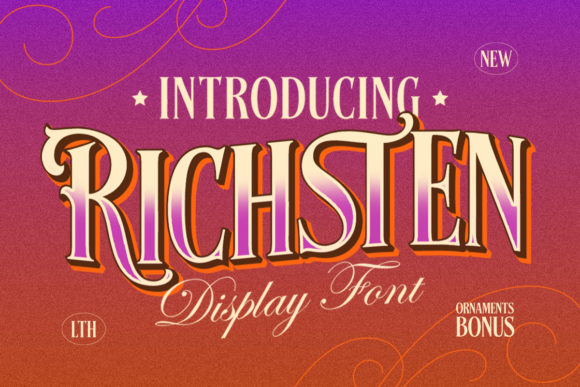
Prepare yourself to be captivated by Richsten Font, a display font that exudes boldness, style, and majesty. This font is not just a collection of letters; it's an artistic expression waiting to be unleashed upon your creative projects. With Richsten Font, you hold the key to unlocking a world of design possibilities, where your imagination reigns supreme.
Picture this: you're working on a book cover, and you want the title to jump off the page and grab the reader's attention. Richsten Font is your secret weapon. Its bold and stylish characters will command attention, leaving an unforgettable impression on anyone who lays eyes upon them.
Or perhaps you're creating a logo for your new business venture. You want a logo that reflects your brand's personality, something that exudes confidence and sophistication. Richsten Font is the perfect choice. Its majestic appearance will elevate your logo to new heights, making it a symbol of excellence and success.
But Richsten Font isn't limited to these applications. It's a versatile font that thrives in various settings. Whether you're designing posters, flyers, social media graphics, or even branding materials, Richsten Font will add a touch of elegance and sophistication that sets your work apart from the ordinary.
Don't settle for ordinary fonts that blend into the background. Choose Richsten Font and embark on a creative journey where your imagination knows no bounds. Let the bold strokes and stylish curves of this font ignite your passion and transform your creative visions into stunning realities.
So, what are you waiting for? Embrace the majesty of Richsten Font today and unlock a world of design possibilities. Let your creativity soar, and let Richsten Font be your guide.